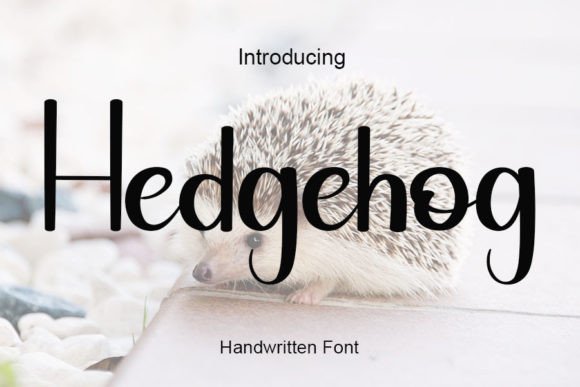
Introducing Hedgehog Font - An Enchanting Journey into the World of Handwritten Elegance
Unleash the captivating charm of Hedgehog Font, a masterpiece of handwritten artistry that will transform your creative projects into captivating visual masterpieces. As a premium script font, Hedgehog embodies the essence of timeless elegance, leaving an indelible mark on your designs.
Indulge in the exquisite details, meticulously crafted to evoke the essence of a handwritten masterpiece. Each letter dances across the page, carrying a unique personality that adds a touch of individuality to your words. With its beautiful flourishes and graceful curves, Hedgehog Font adds a touch of sophistication and charm to any project.
Step into a world of boundless creativity, where the possibilities are endless. The versatility of Hedgehog Font makes it the perfect companion for a kaleidoscope of projects, from heartfelt invitations to eye-catching logos. Its distinctive style lends a touch of magic to wedding stationery, branding materials, social media posts, and even handwritten notes. The sky's the limit with Hedgehog Font!
Let your imagination soar as you explore the depths of Hedgehog Font's expressive style. Its intricate details and charming quirks add a touch of personality to your designs, making them stand out from the crowd. From the delicate swirls to the subtle variations in thickness, each letter is a work of art, captivating your audience and leaving them spellbound.
Experience the delight of creating designs that resonate with emotion and authenticity. With Hedgehog Font as your guiding light, your projects will exude a sense of warmth and connection, captivating hearts and minds alike. Its timeless elegance transcends trends, ensuring that your designs remain relevant and impactful for years to come.